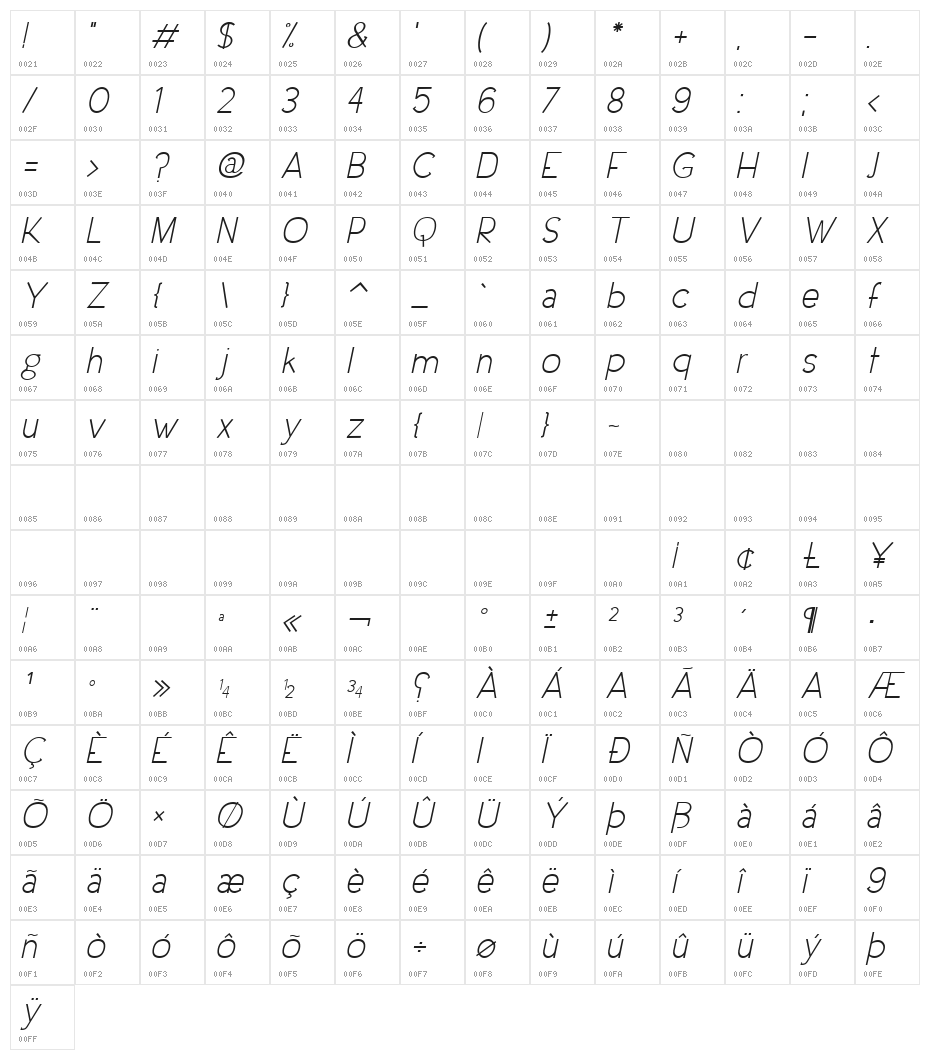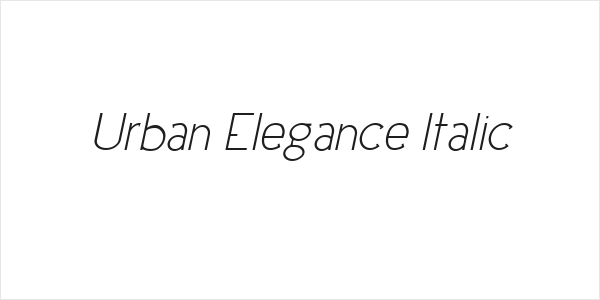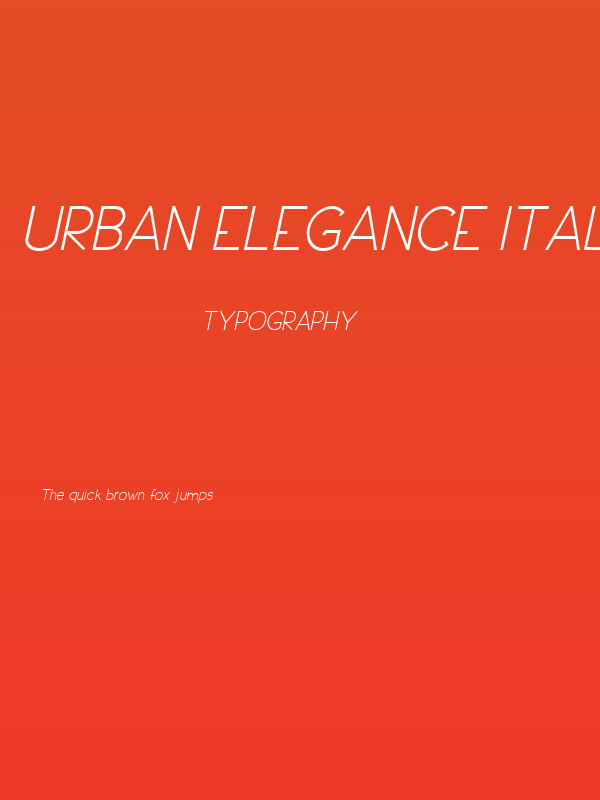
Urban Elegance Italic Font
Urban Elegance Italic Description
This font exudes a sleek and modern aesthetic with its italicized form, offering a sense of motion and elegance. The characters are crafted with clean lines and a slight slant, giving it a dynamic yet sophisticated look. The uppercase and lowercase letters maintain a consistent style, with a uniform stroke width that adds to its contemporary appeal. The numerals and special characters are designed to complement the alphabet, ensuring versatility across various applications. This typeface is ideal for projects that require a touch of modernity and elegance.
| Proposed Projects | Ideal for branding, editorial design, fashion magazines, and modern web design. |